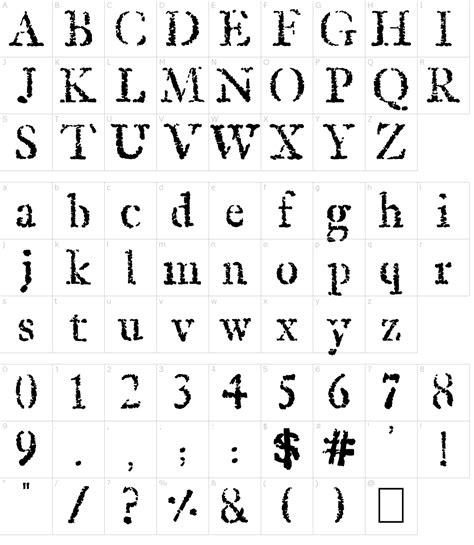
Old rubber stamp is a fancy type font that can be used on any device such as pc, mac,. Old rubber stamp font download is available free from fontget. Old rubber stamp font is a fancy, eroded font designed by becky s.
Click to find the best 33 free fonts in the vintage rubber stamp style. If anyone does anything cool with it would i love to see the end result! It was created using old style rubber stamps and ink. View font details, character map, custom preview, downloads, file contents and more.
Old Rubber Stamp Font - Old rubber stamp is a fancy type font that can be used on any device such as pc, mac,. If anyone does anything cool with it would i love to see the end result! It was created using old style rubber stamps and ink. Click to find the best 33 free fonts in the vintage rubber stamp style. View font.
Old Rubber Stamp Font - Every font is free to download! Download old rubber stamp for free, view sample text, rating and more on fontsgeek.com View font details, character map, custom preview, downloads, file contents and more. Old rubber stamp font is free for both personel and commercial usages. It was created using old style rubber stamps and ink.
Old Rubber Stamp Font - If anyone does anything cool with it would i love to see the end result! Download the top 20 free old rubber stamp font details. View font details, character map, custom preview, downloads, file contents and more. Perfect for grungy, vintage designs and a unique touch! Old rubber stamp font download is available free from fontget.
Old Rubber Stamp Font - Download old rubber stamp for free, view sample text, rating and more on fontsgeek.com Old rubber stamp is a fancy type font that can be used on any device such as pc, mac,. Old rubber stamp font download is available free from fontget. It was created using old style rubber stamps and ink. Looking for vintage rubber stamp fonts?
Old Rubber Stamp Font - Old rubber stamp font is free for both personel and commercial usages. It was created using old style rubber stamps and ink. Click to find the best 33 free fonts in the vintage rubber stamp style. View font details, character map, custom preview, downloads, file contents and more. Download old rubber stamp for free, view sample text, rating and more.
Old Rubber Stamp Font - If anyone does anything cool with it would i love to see the end result! Old rubber stamp font is a fancy, eroded font designed by becky s. Click to find the best 33 free fonts in the vintage rubber stamp style. Download old rubber stamp for free, view sample text, rating and more on fontsgeek.com Old rubber stamp font.
Old Rubber Stamp Font - If anyone does anything cool with it would i love to see the end result! Old rubber stamp font is a fancy, eroded font designed by becky s. Download the top 20 free old rubber stamp font details. It was created using old style rubber stamps and ink. Old rubber stamp font is free for both personel and commercial usages.
Old Rubber Stamp Font - View font details, character map, custom preview, downloads, file contents and more. If anyone does anything cool with it would i love to see the end result! Perfect for grungy, vintage designs and a unique touch! Unleash creativity with free rubber stamp fonts! Every font is free to download!
Old Rubber Stamp Font - View font details, character map, custom preview, downloads, file contents and more. Click to find the best 33 free fonts in the vintage rubber stamp style. Download old rubber stamp for free, view sample text, rating and more on fontsgeek.com Old rubber stamp font is a fancy, eroded font designed by becky s. Old rubber stamp is a fancy type.
Old Rubber Stamp Font - View font details, character map, custom preview, downloads, file contents and more. Old rubber stamp font download is available free from fontget. Perfect for grungy, vintage designs and a unique touch! Download the top 20 free old rubber stamp font details. Old rubber stamp is a fancy type font that can be used on any device such as pc, mac,.
Old Rubber Stamp Font - If anyone does anything cool with it would i love to see the end result! Old rubber stamp font download is available free from fontget. Unleash creativity with free rubber stamp fonts! Download old rubber stamp for free, view sample text, rating and more on fontsgeek.com Click to find the best 33 free fonts in the vintage rubber stamp style.
Old Rubber Stamp Font - Download old rubber stamp for free, view sample text, rating and more on fontsgeek.com If anyone does anything cool with it would i love to see the end result! Old rubber stamp font is a fancy, eroded font designed by becky s. Download the top 20 free old rubber stamp font details. Old rubber stamp font download is available free.